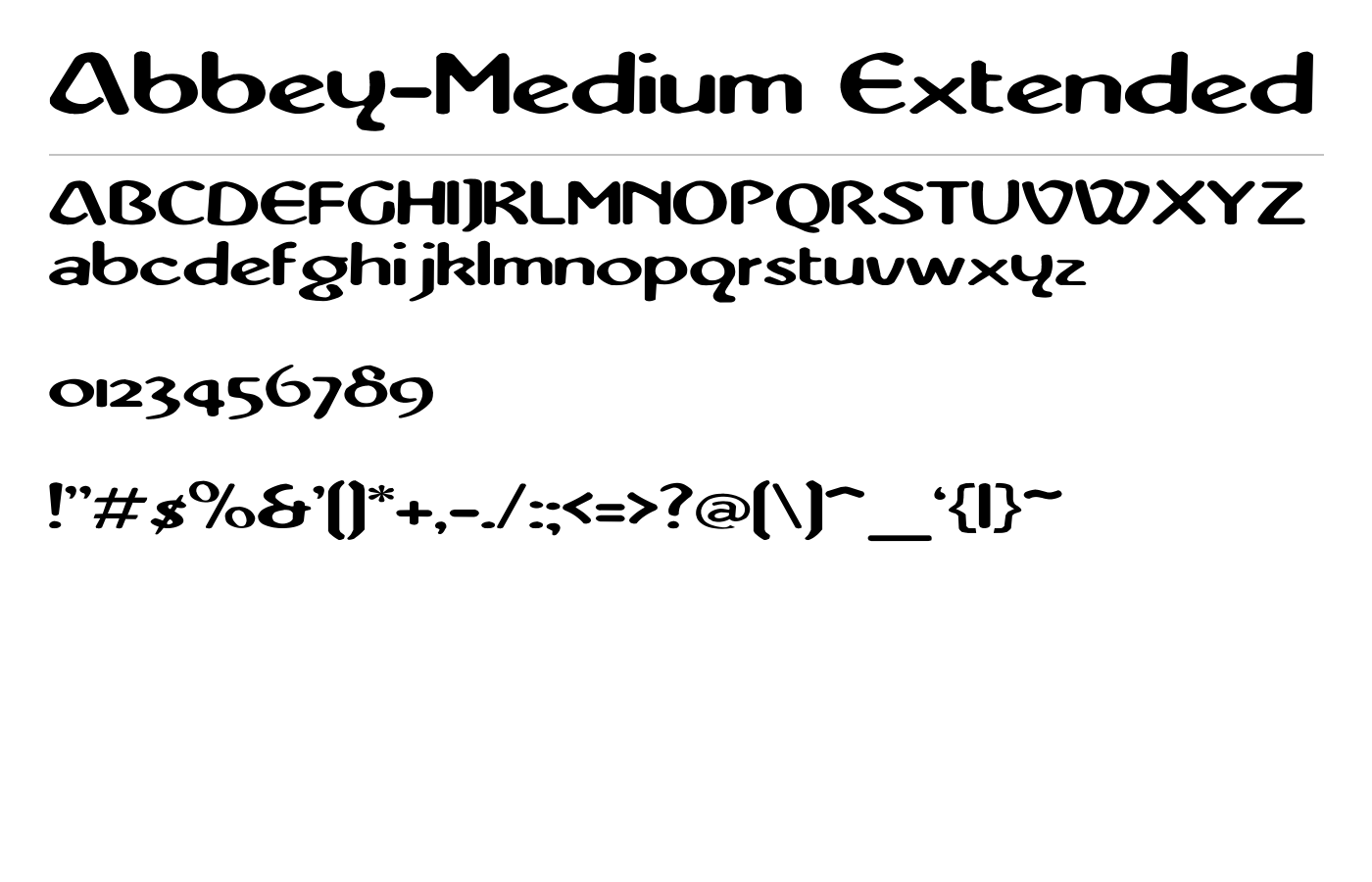
Abbey Medium Extended is a distinctive sans serif font with a playful, hand-crafted feel marked by its medium weight and extended width. Its unique letterforms feature rounded, organic shapes with subtle curves and irregular strokes, giving it a lively, artistic personality well-suited for creative branding, casual headlines, and expressive display uses. This font's quirky style works great for projects seeking a friendly, approachable vibe that stands out with character and charm.
Abbey Medium Extended Font
About Abbey Medium Extended Font